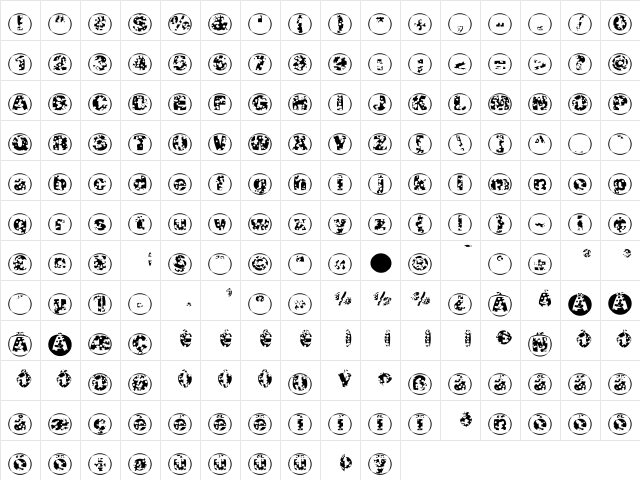
SwissCheeseCircles02 Regular
Design Context for SwissCheeseCircles02 Typeface
SwissCheeseCircles02 is a composed and adaptable typeface that performs quietly and consistently across a wide range of design contexts.